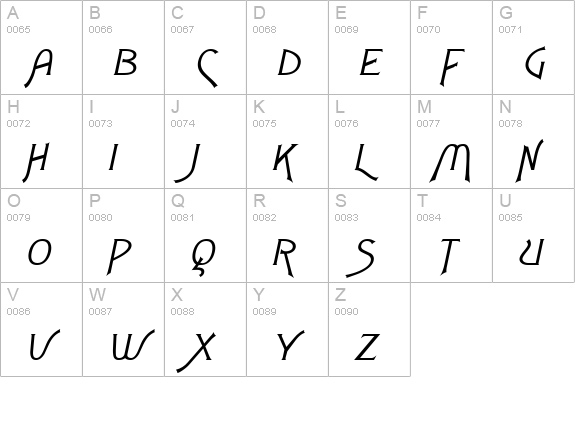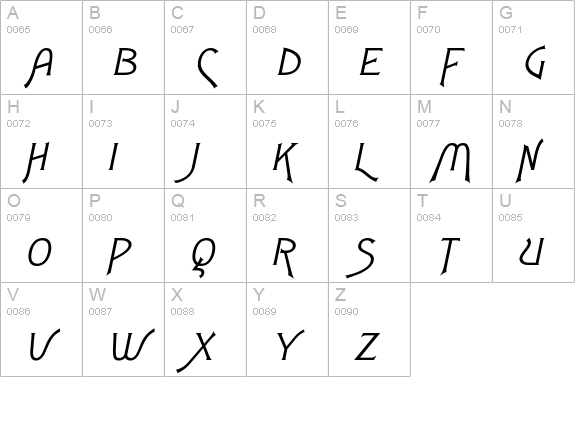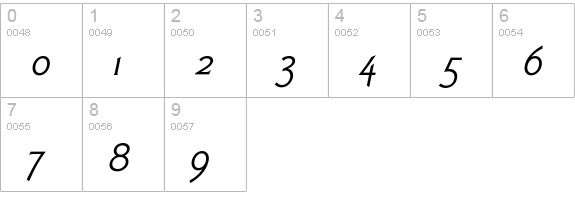
Fletch Wide Italic is a distinctive, extended-width, italic variant in the Fletch typeface family \xE2\x80\x94 well suited to design and typography projects.
Fletch Wide Italic font is a stylish and modern typeface that exudes elegance and sophistication. Its slanted design adds a touch of flair to any project, making it perfect for adding a dynamic and contemporary look to your designs. This font features wide letterforms with a sleek and streamlined appearance, making it ideal for headlines, branding, and editorial design. The italic style adds a sense of movement and energy to the text, creating a visually appealing and engaging aesthetic. Fletch Wide Italic font is not only beautiful but also versatile, suitable for a wide range of design applications. Whether you're working on a website, poster, logo, or any other project, this font will add a touch of sophistication and style. Best of all, Fletch Wide Italic font is available for free download at FontsMarket.com. So go ahead and elevate your designs with this stunning typeface today!